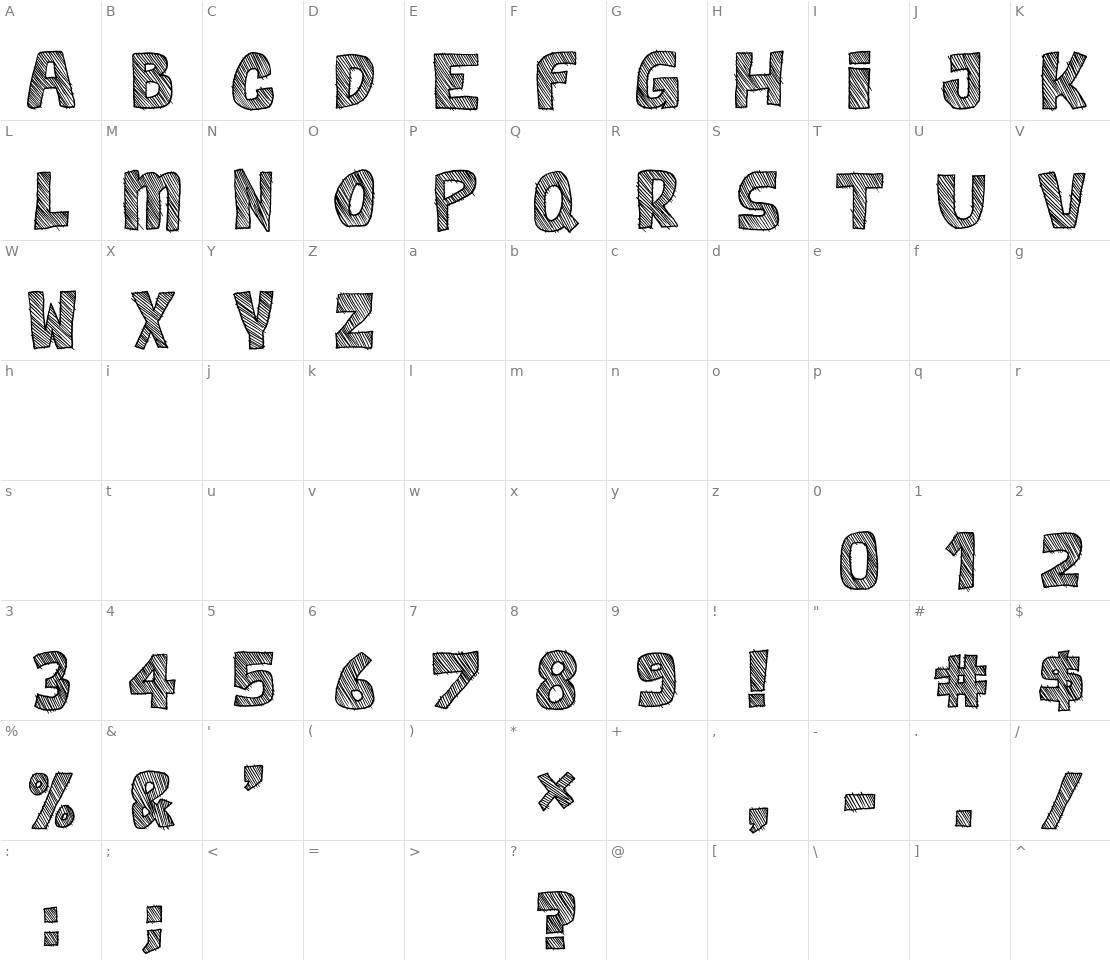
Best Prices
Best Prices is a novelty display face from imagex where every letterform is built from loose, sketchy hatch lines, giving it the look of something doodled quickly in a notebook. The uppercase-only character set keeps things simple and readable despite the hand-drawn texture, and the overall effect is playful and informal rather than polished. Works well for headlines, posters, and signage that need a casual, illustrative quality.